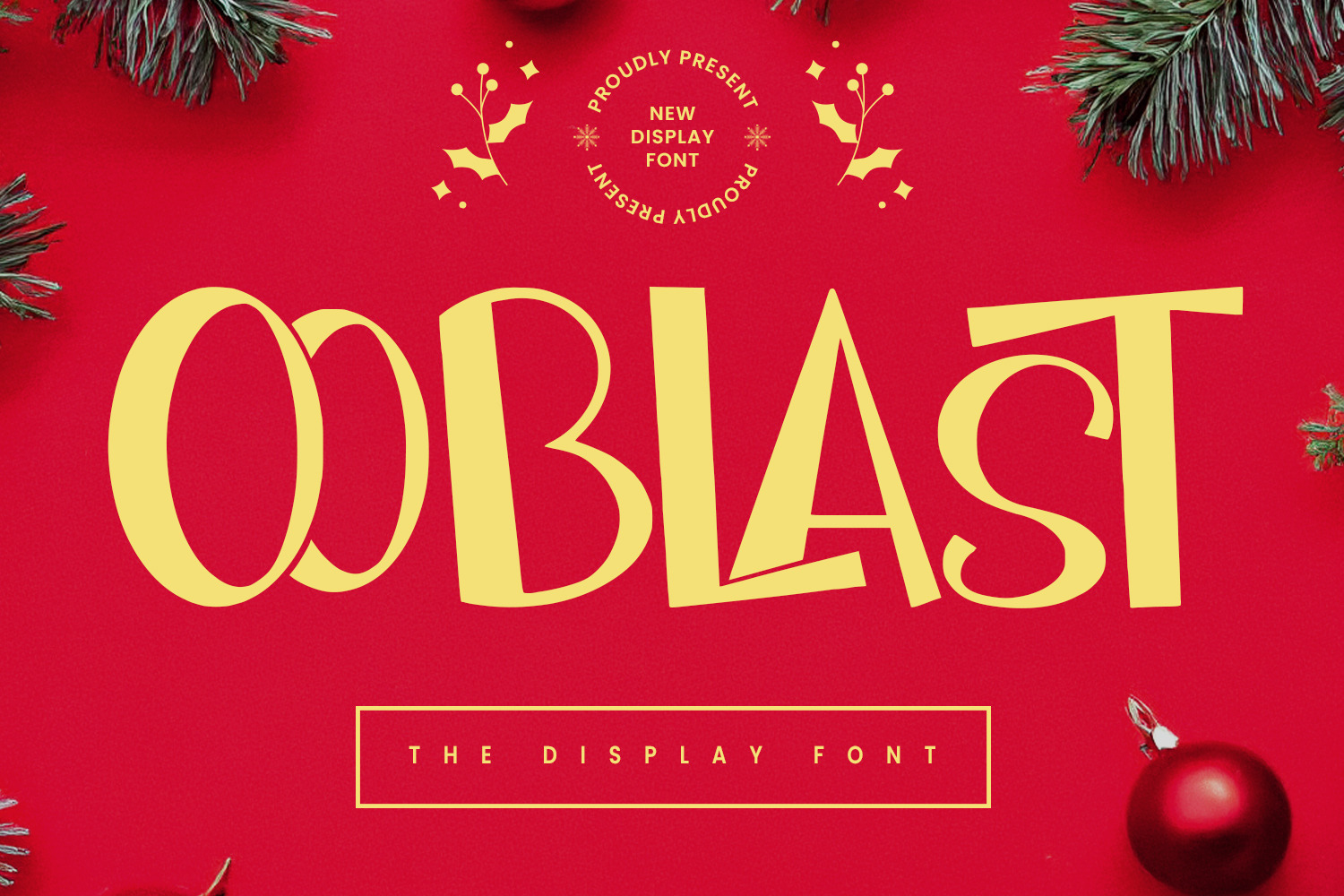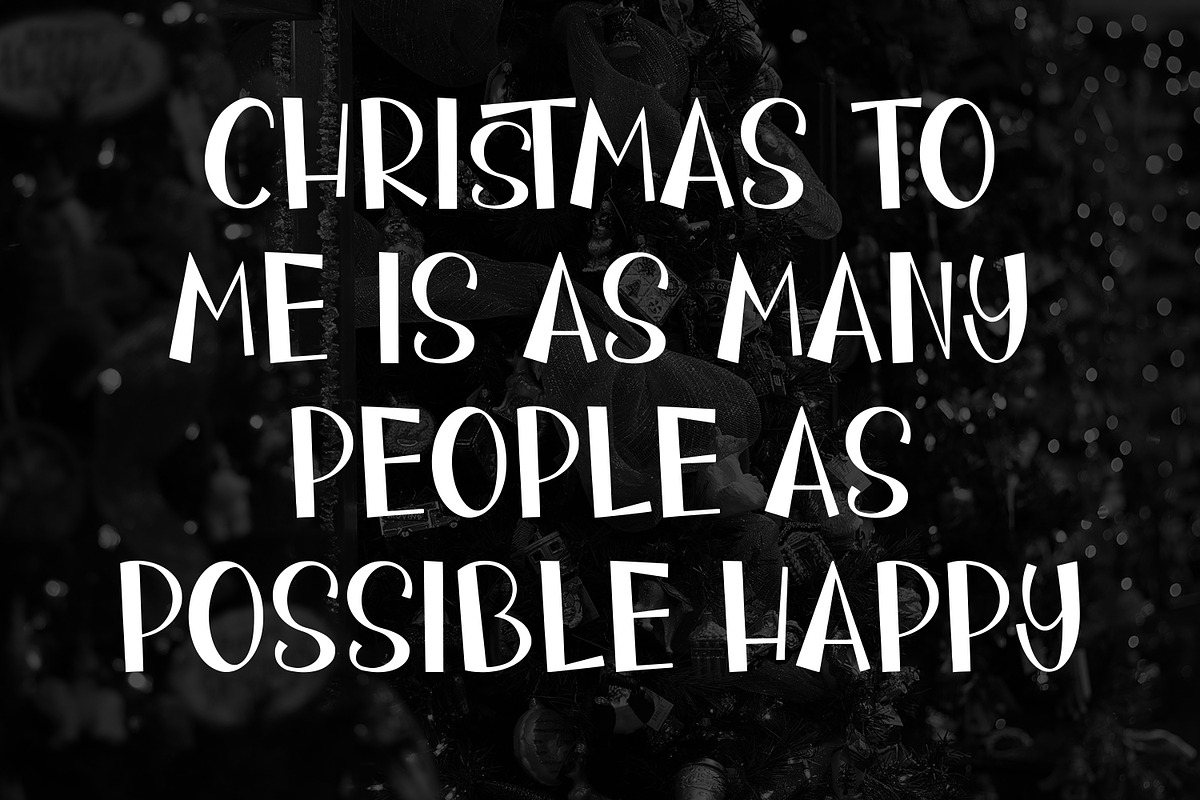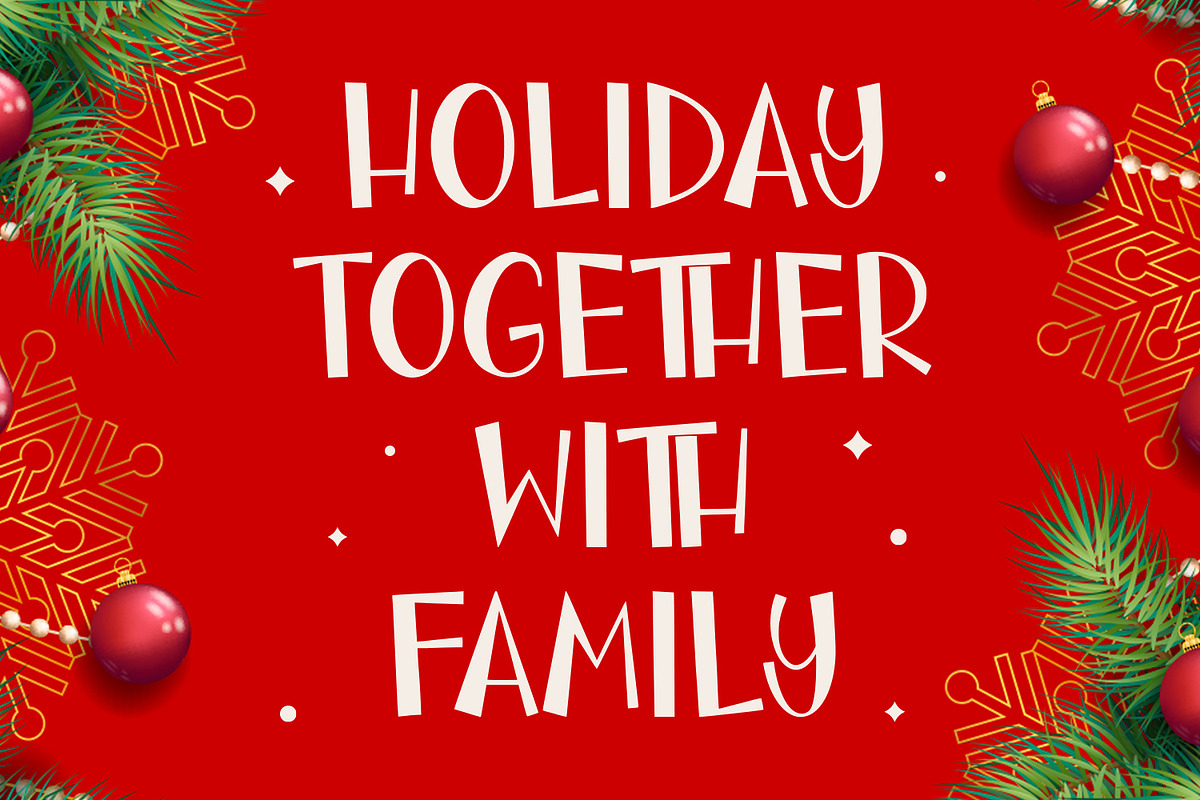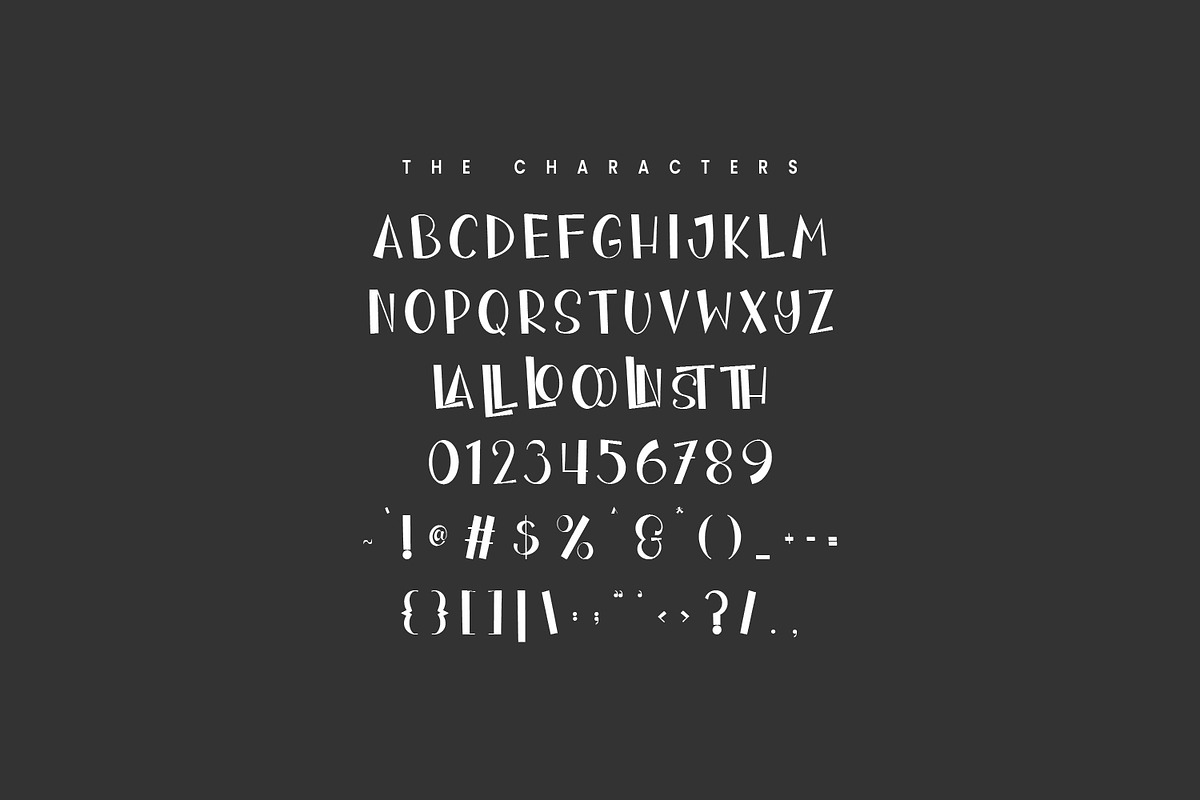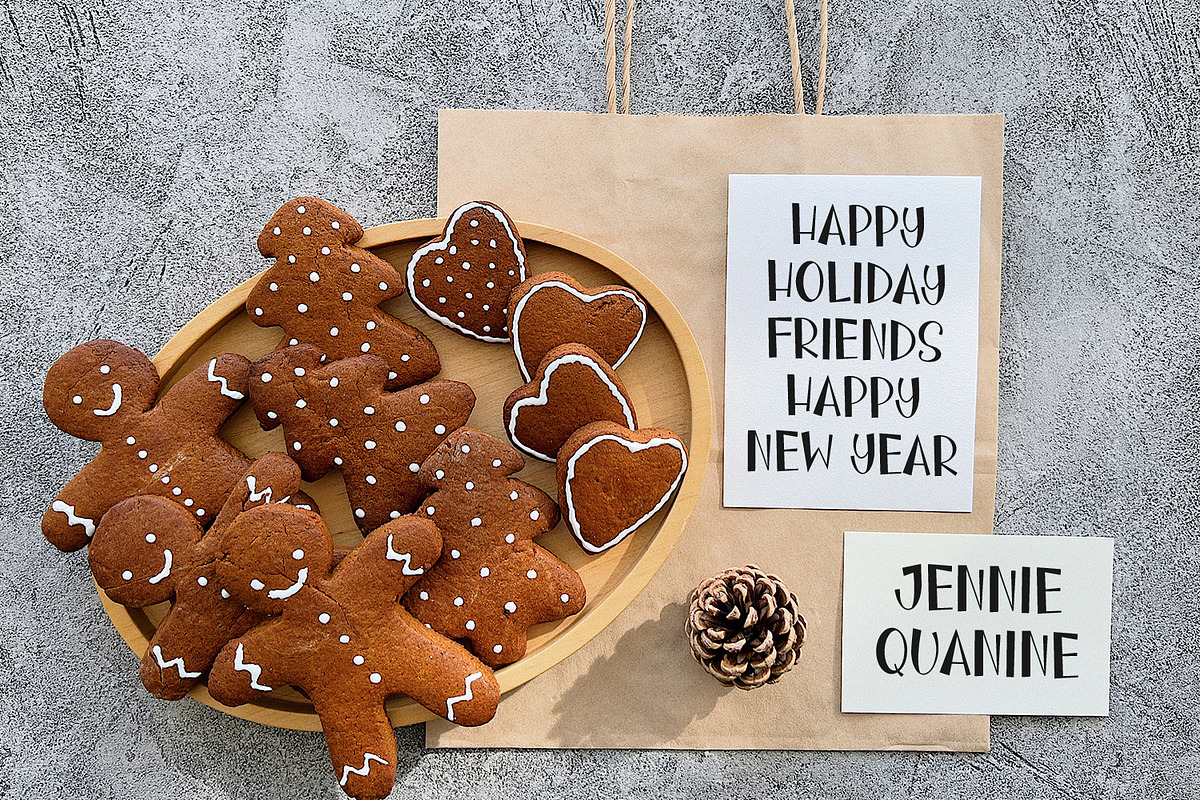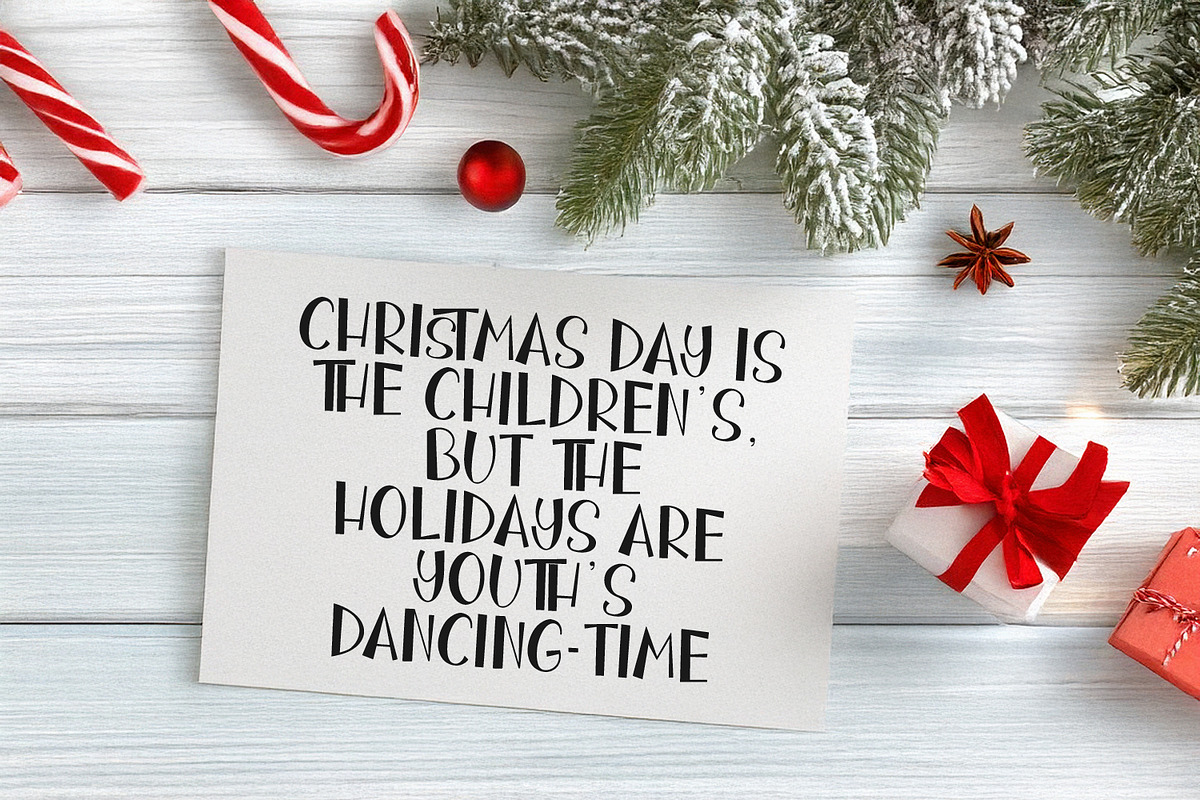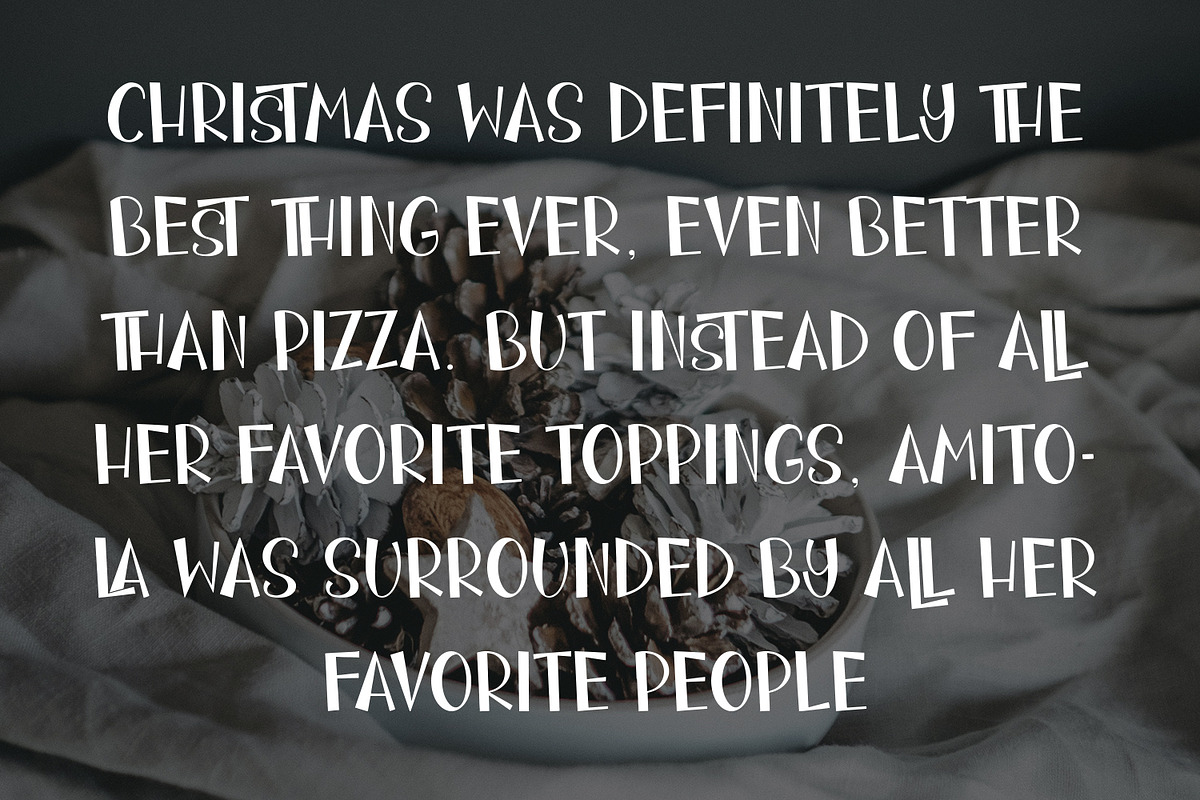
Ooblast Display Font Christmas
Ooblast is a display modern font. With bold tall and sharp stroke, fun character with a bit of ligatures. To give you an extra creative work. Ooblast font support multilingual more than 100+ language. This font is good for logo design, Social media, Movie Titles, Books Titles, a short text even a long text letter and good for your secondary text font with sans or serif. Make a stunning work with Ooblast font.